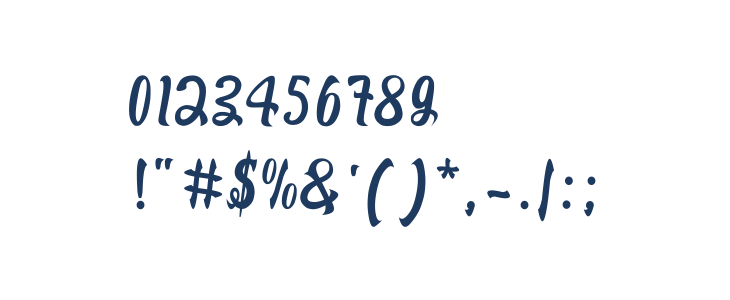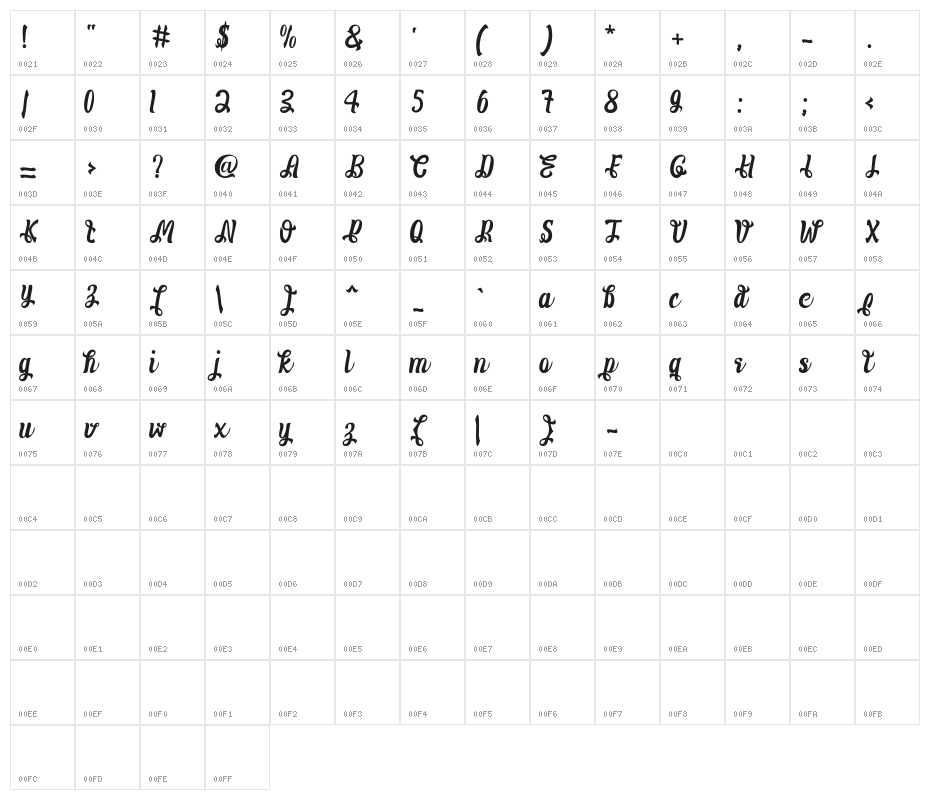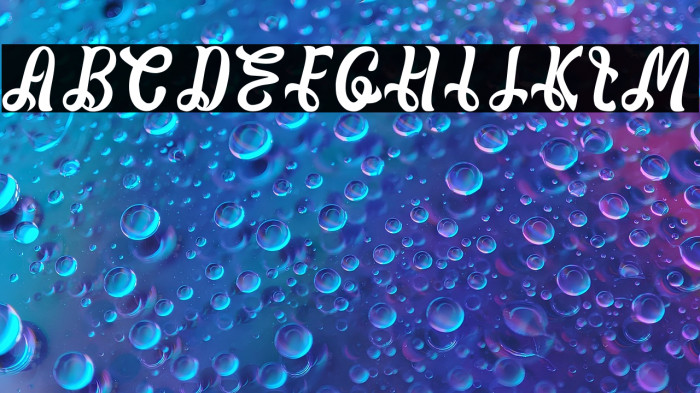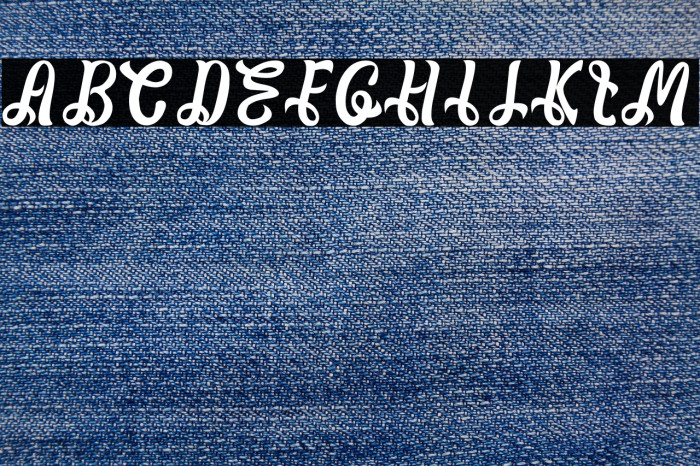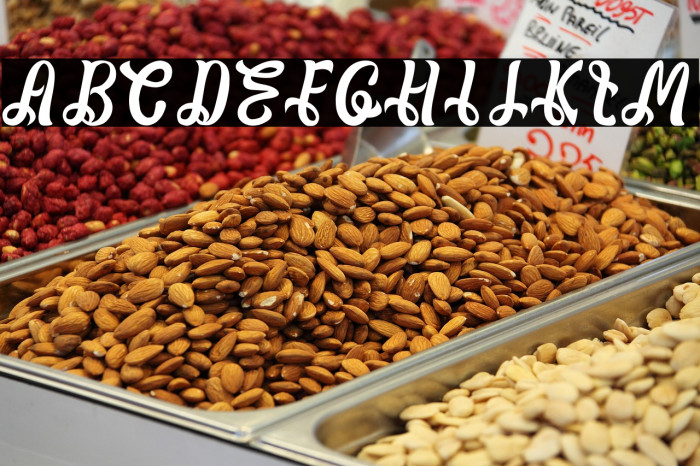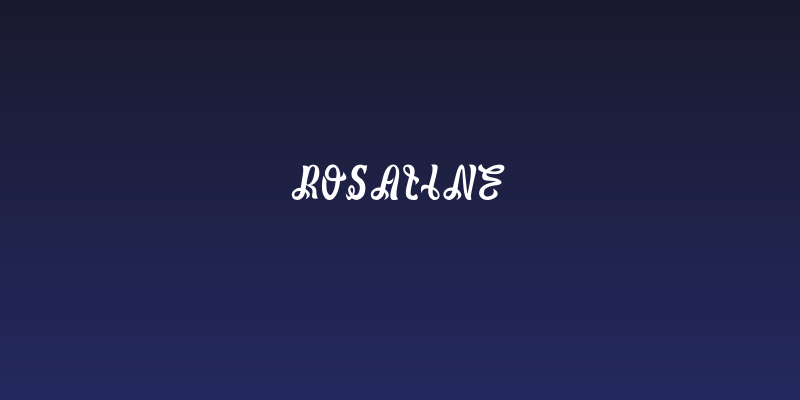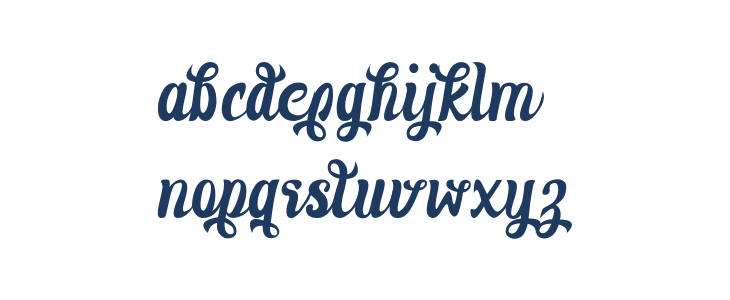
Rosaline Font
Rosaline Description
This font exhibits a bold and decorative script style, characterized by its flowing, cursive-like strokes and intricate detailing. The uppercase letters are ornate, with flourishes that add a sense of elegance and sophistication. The lowercase letters maintain a consistent style, offering a harmonious blend with the uppercase set. Numbers and special characters are designed with the same attention to detail, ensuring a cohesive look across all elements. The overall appearance is both artistic and legible, making it suitable for creative and expressive design projects.